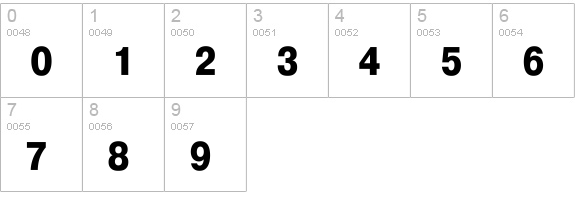
Pragmatica Cond ExtraBold Font Details
Pragmatica Cond ExtraBold is an extra-heavy, attention-grabbing, condensed-width variant in the Pragmatica typeface family \xE2\x80\x94 well suited to high-impact headlines, posters, and bold branding.
Pragmatica Cond ExtraBold font is a bold and impactful typeface that commands attention with its strong, confident appearance. Its condensed form adds a touch of sleekness and modernity to any design project, making it a versatile choice for headlines, logos, and branding materials. The sharp angles and clean lines of Pragmatica Cond ExtraBold exude a sense of professionalism and sophistication, making it perfect for projects that require a bold statement. And the best part? Pragmatica Cond ExtraBold font is available for free download at FontsMarket.com. This means you can easily access and use this powerful font in your designs without any cost, making it a valuable addition to your font library. Whether you're working on a print design, web project, or any other creative endeavor, Pragmatica Cond ExtraBold font is sure to make a bold impact and elevate your work to the next level.